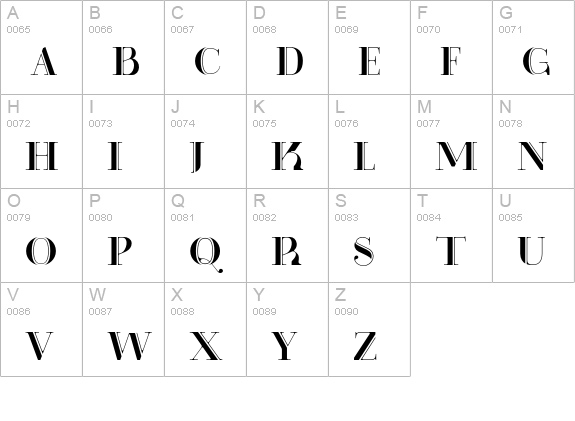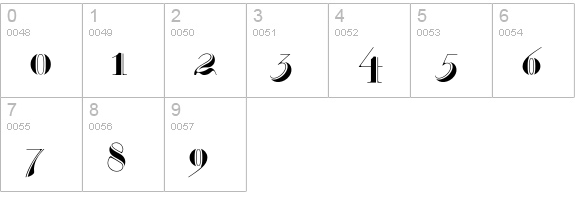
Paris Pro Bold Strip Font Details
Paris Pro Bold Strip is a strong, high-contrast variant in the Paris typeface family \xE2\x80\x94 well suited to headlines, attention-grabbing titles, and strong calls-to-action.
Paris Pro Bold Strip is a stunning and versatile typeface that exudes elegance and sophistication. Its bold and distinctive design makes it perfect for creating eye-catching titles, headlines, and branding materials. The unique strip detailing adds a modern touch to this timeless font, making it stand out from the crowd. What makes Paris Pro Bold Strip even more appealing is that it is available for free download at FontsMarket.com. This means that you can easily access and use this stylish font for all your design projects without any cost. Whether you're working on a poster, website, or logo, Paris Pro Bold Strip is sure to elevate your design with its bold and captivating presence. Download this font today and add a touch of Parisian chic to your creations.